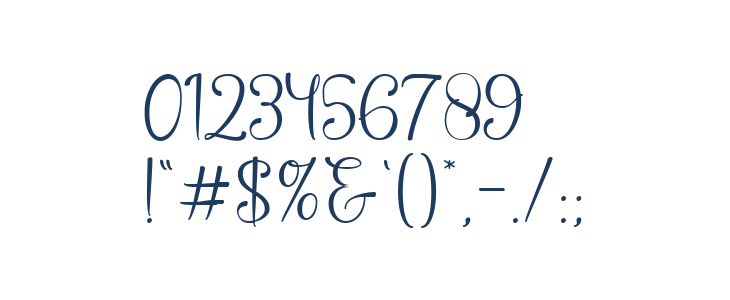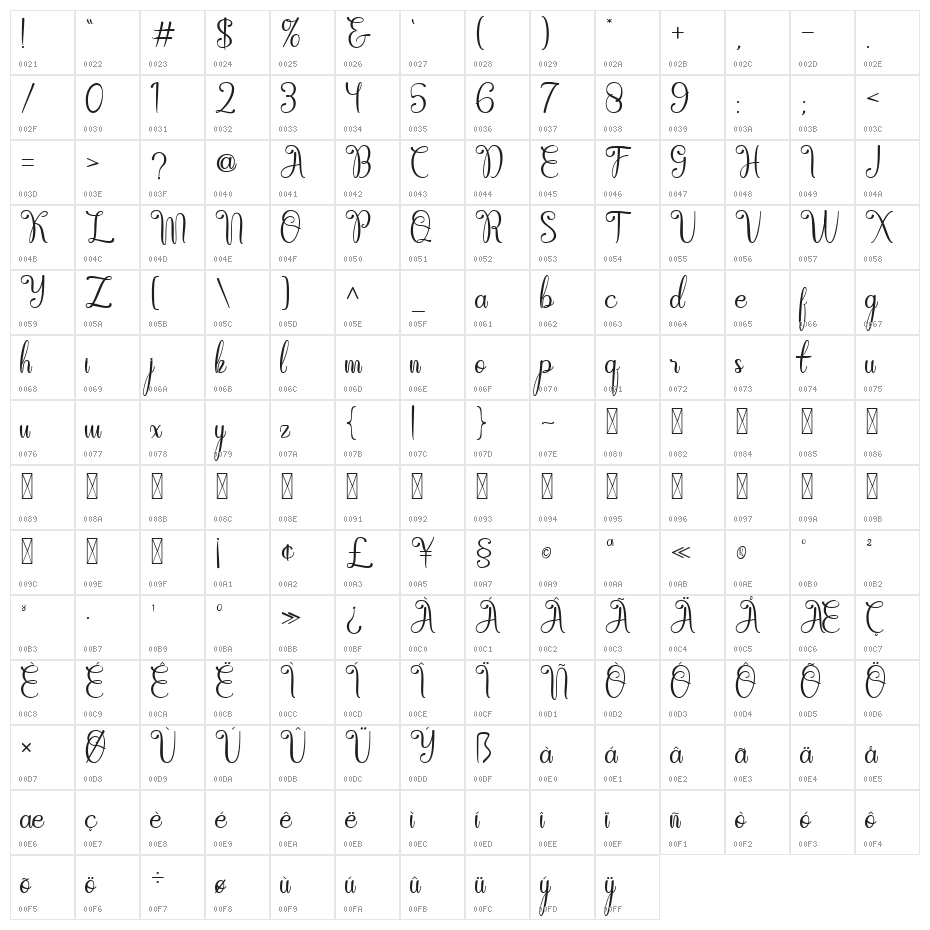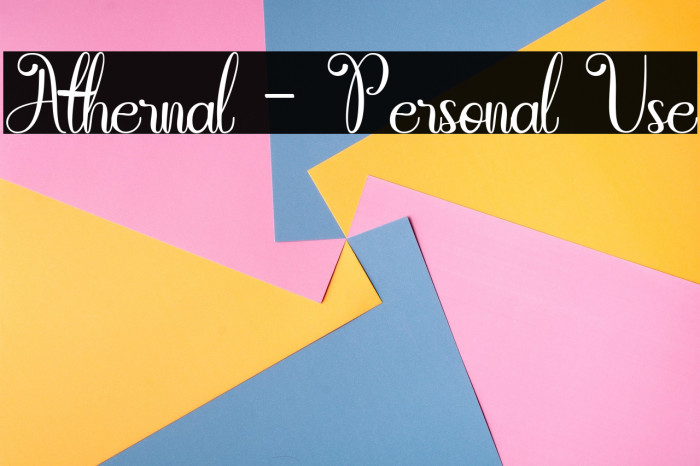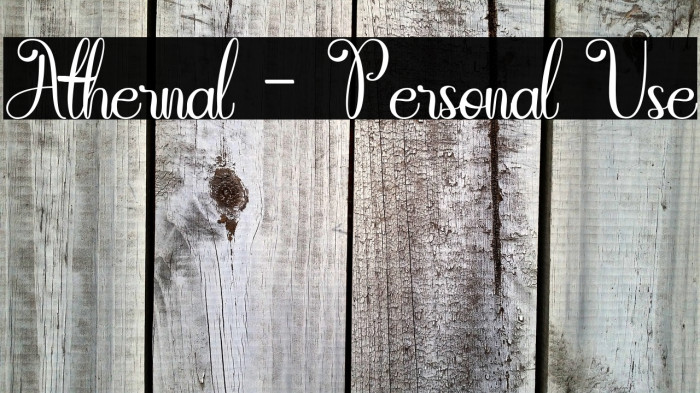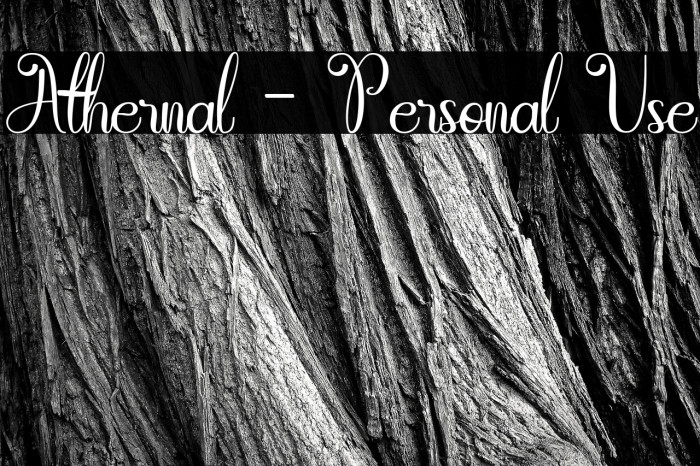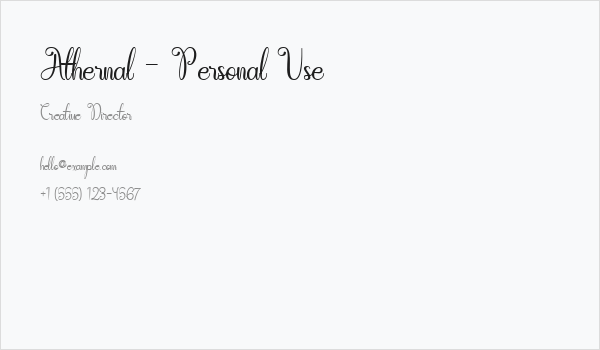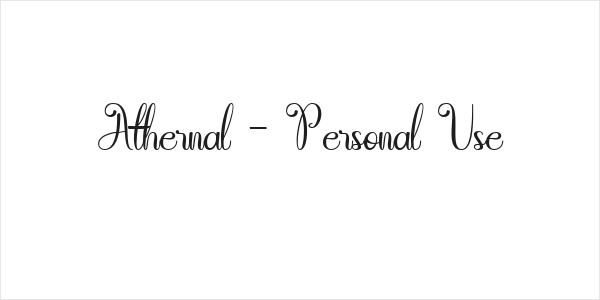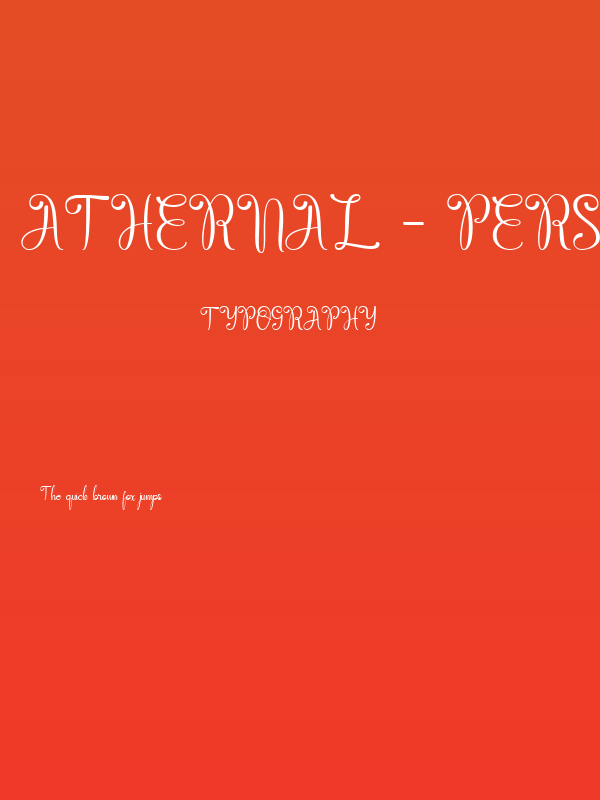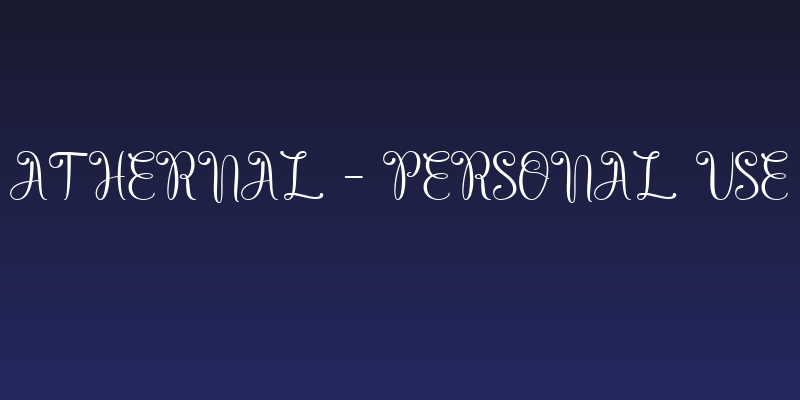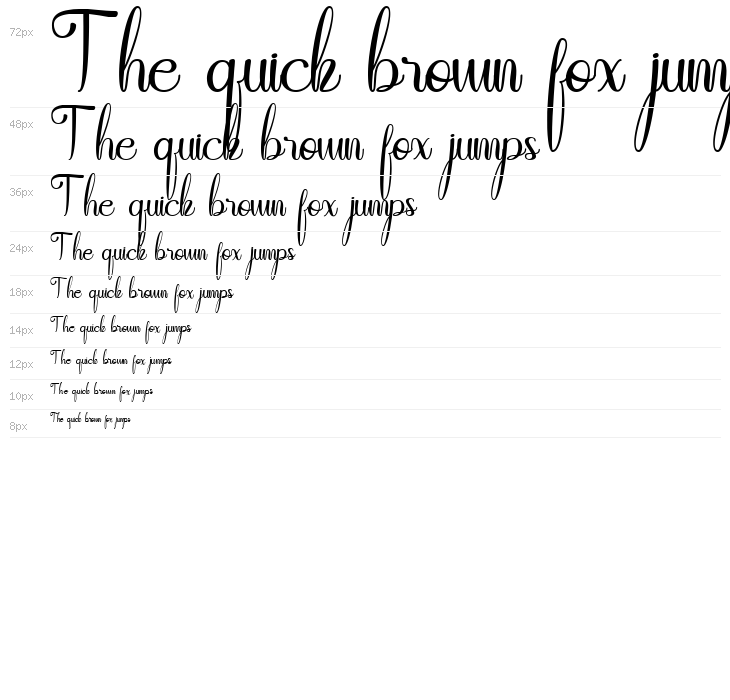
Athernal - Personal Use Font
Athernal - Personal Use Description
This font features a decorative and elegant script style, characterized by its flowing and interconnected letterforms. The uppercase letters exhibit a graceful looped design, while the lowercase letters maintain a consistent cursive flow. The numerals are designed with a similar flair, incorporating subtle curves and loops that enhance the overall aesthetic. Special characters are crafted with the same attention to detail, ensuring a cohesive look across all glyphs. The font's unique style makes it ideal for projects that require a touch of sophistication and artistic flair.